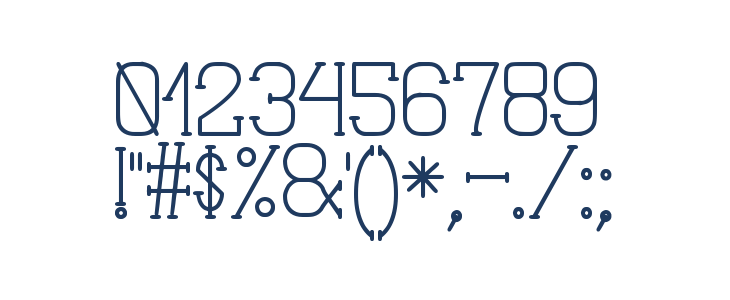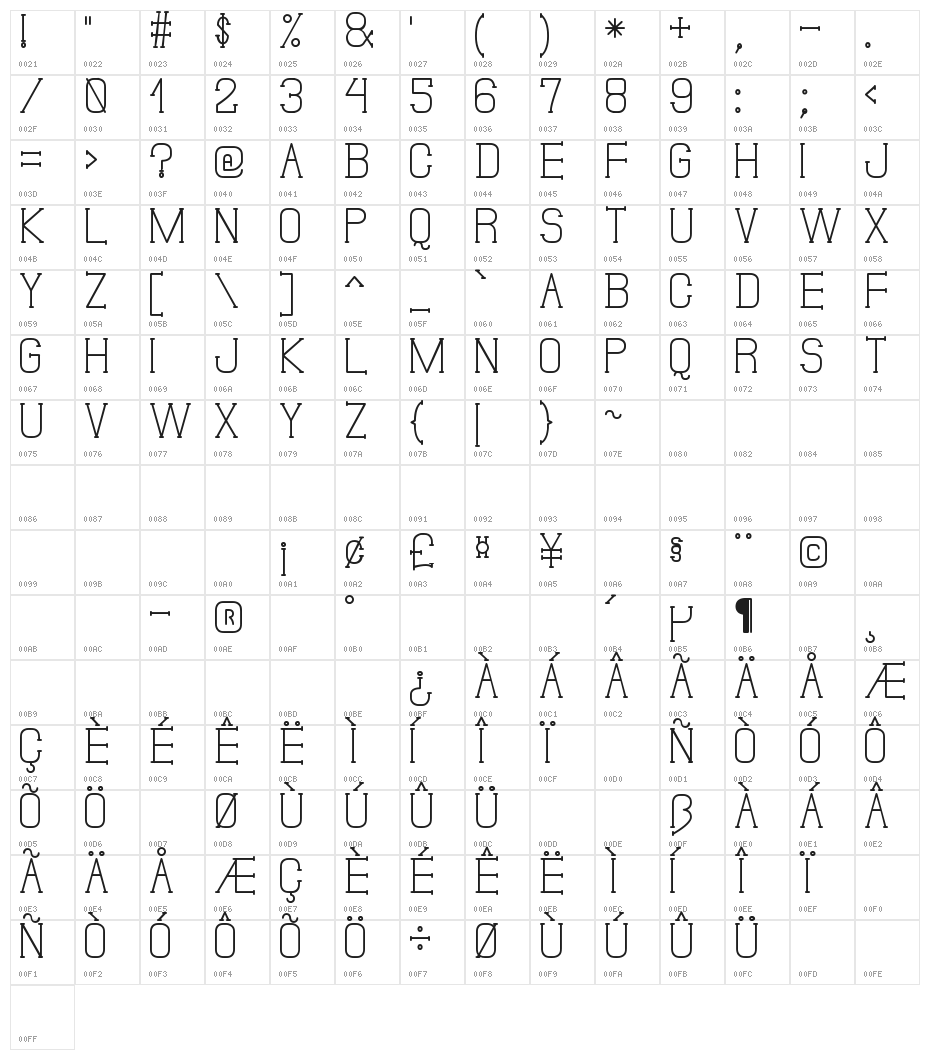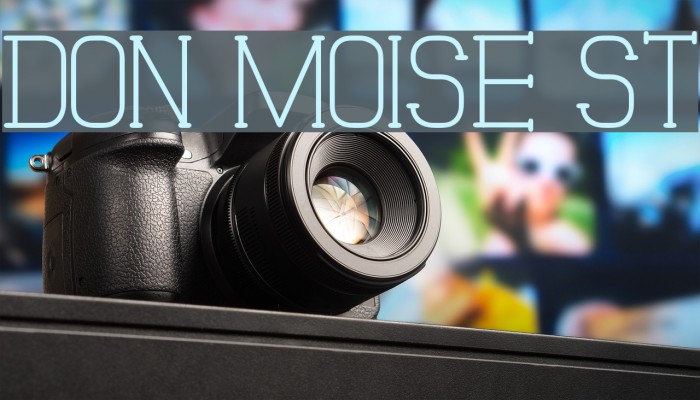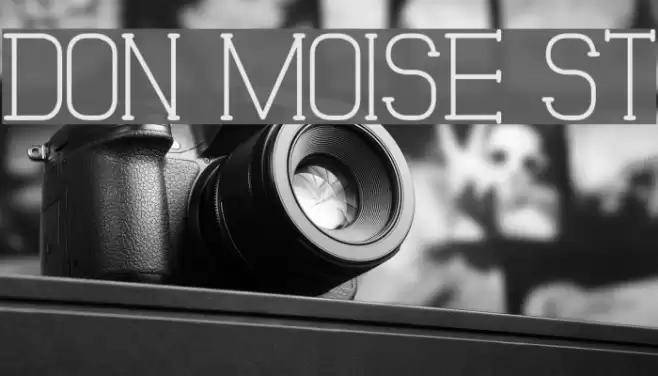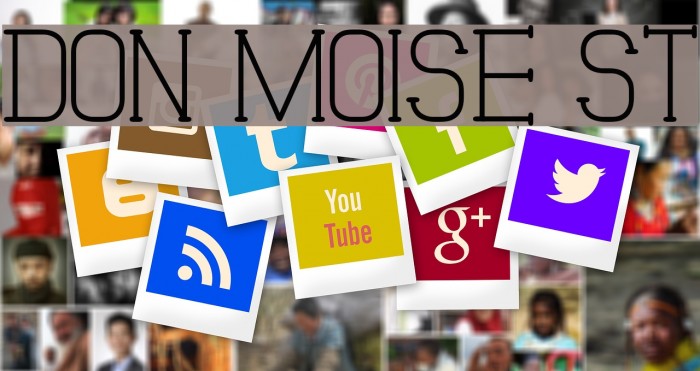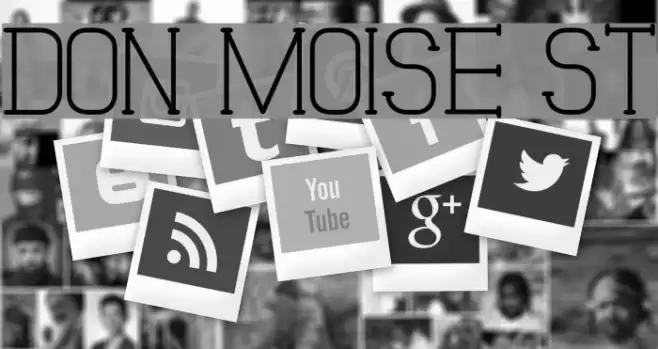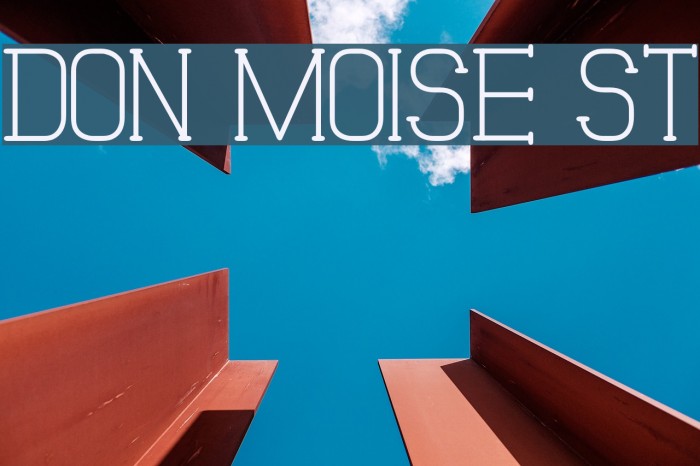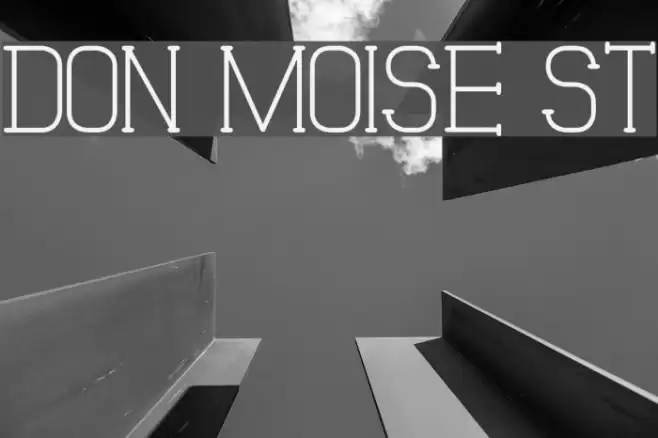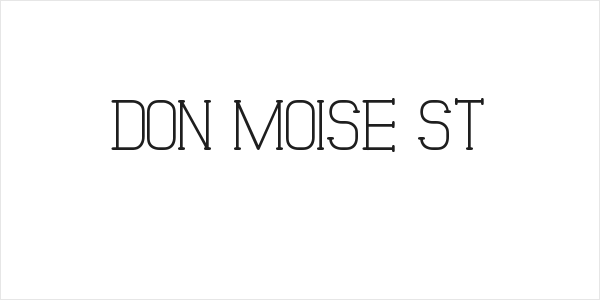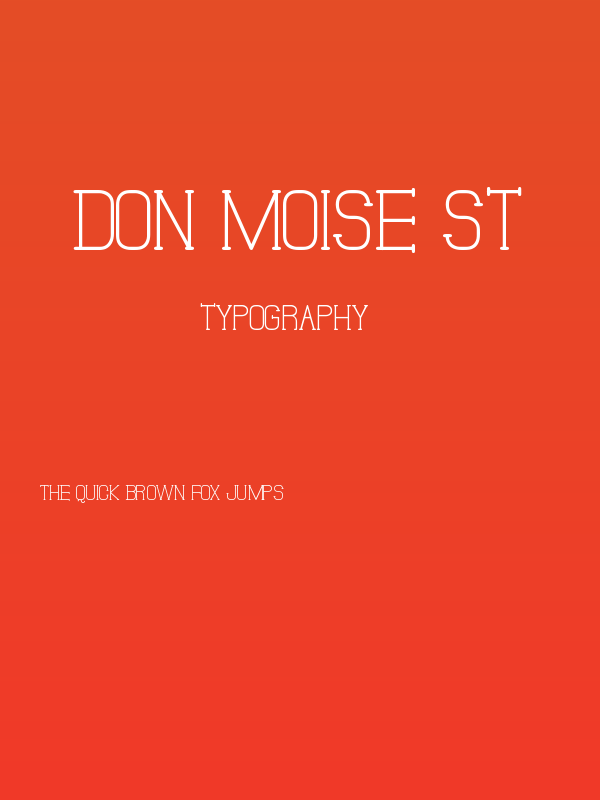
Don Moise St Font
Don Moise St Description
This font features a unique and modern design with a geometric structure. The characters are constructed with a consistent stroke width, giving it a monospaced appearance. The letters have a mechanical feel, with straight lines and sharp angles, yet they maintain a sense of elegance due to the subtle curves at the terminals. The numerals and special characters follow the same design principles, ensuring uniformity across the typeface. The overall look is clean and precise, making it suitable for various design applications.
| Proposed Projects | Ideal for technical documents, coding environments, modern branding, and digital interfaces. |